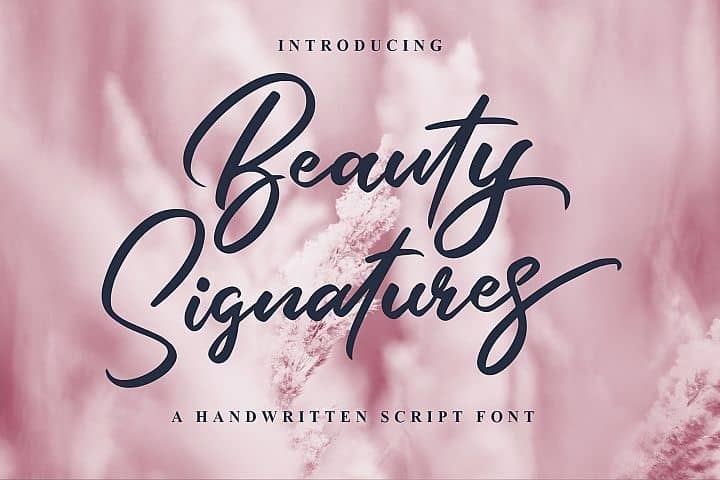
Beauty Signature is a stunning handwritten font available in OTF, TTF, and WOFF formats. Ideal for personal branding, invitations, and unique designs.
Embrace Elegance with Beauty Signature Font
Beauty Signature, crafted by the talented designer Anna Smith in 2022, is a beautifully flowing handwritten font that captures the essence of elegance and sophistication. Ideal for use in personal branding projects, wedding invitations, greeting cards, and unique design applications. This font provides a charming touch that can elevate various design elements.
Features and Formats of Beauty Signature Font
This versatile font is available in OTF, TTF, and WOFF formats, ensuring seamless integration with major design software such as Adobe Creative Suite, CorelDRAW, and Microsoft Office. The smooth curves and stylistic ligatures of Beauty Signature enhance its readability, making it a top choice for both digital and print designs.
The Inspiration Behind Beauty Signature Font
Inspired by modern calligraphy and the beauty of handwritten lettering, Beauty Signature Font was designed to invoke emotion and connect deeply with its audience. Anna Smith’s passion for typography is evident in each character, where the fluid lines reflect a handcrafted quality that resonates with creativity and artistry.
Ideal Use Cases for Beauty Signature Font
Perfect for projects that require a touch of elegance, Beauty Signature shines in branding, wedding invitations, social media graphics, and stylish presentations. Whether used for headlines or body text, this font offers versatility while maintaining a stylish and personal feel.